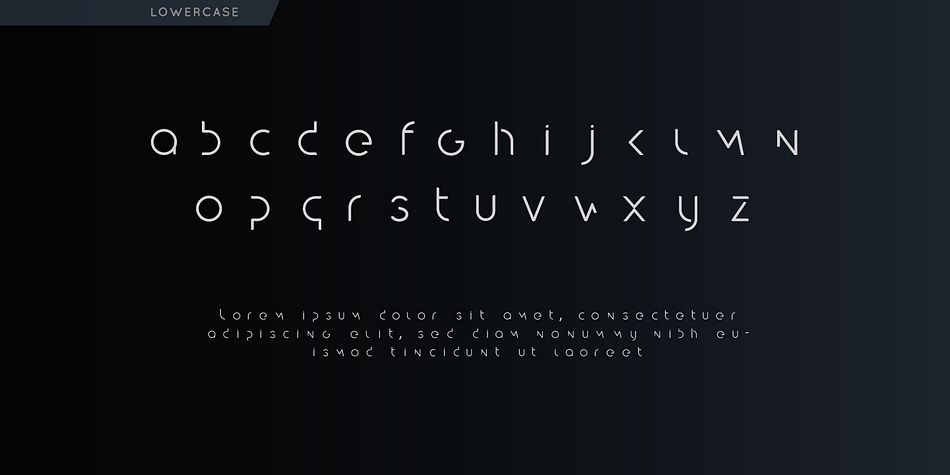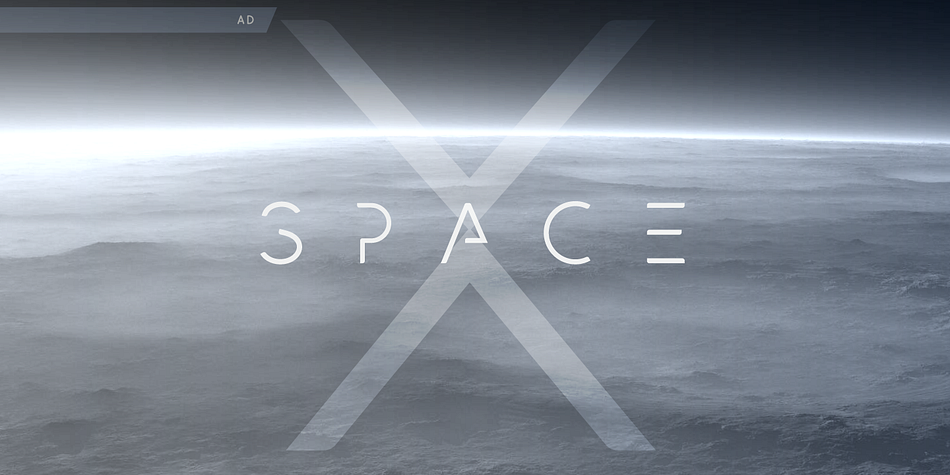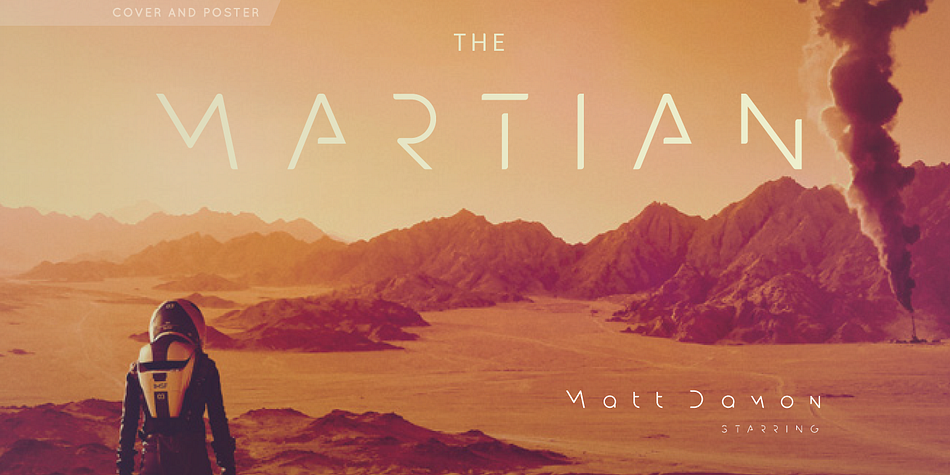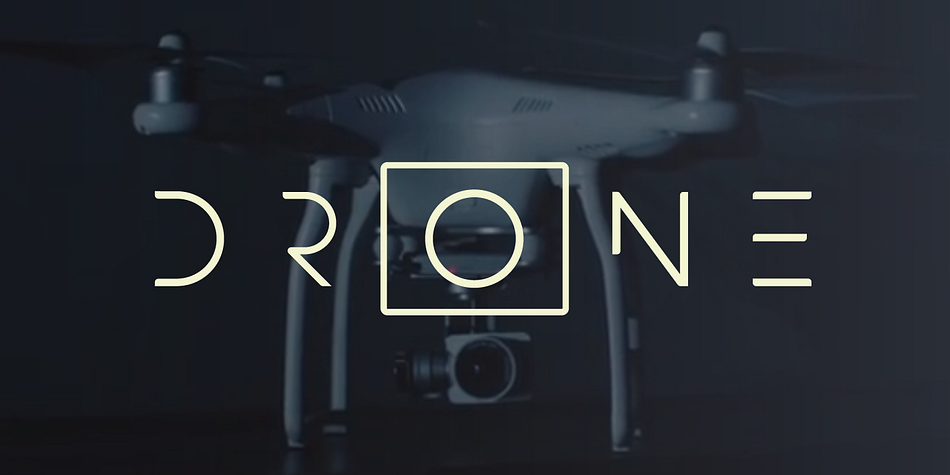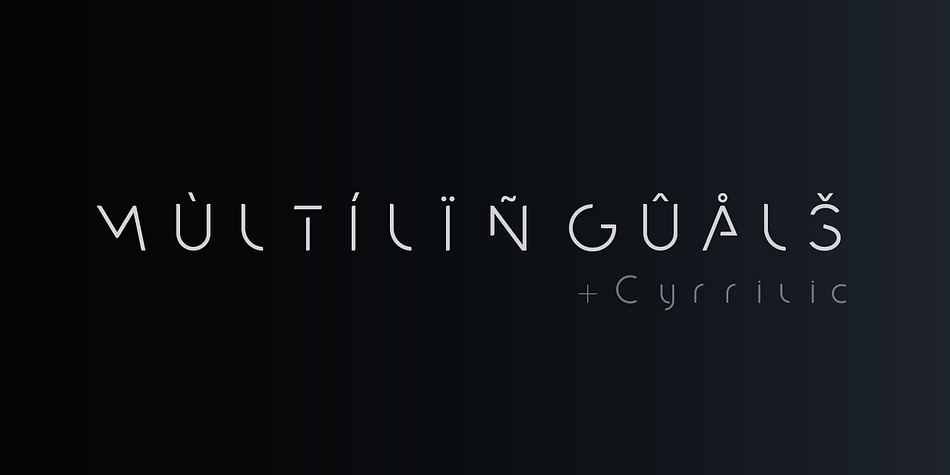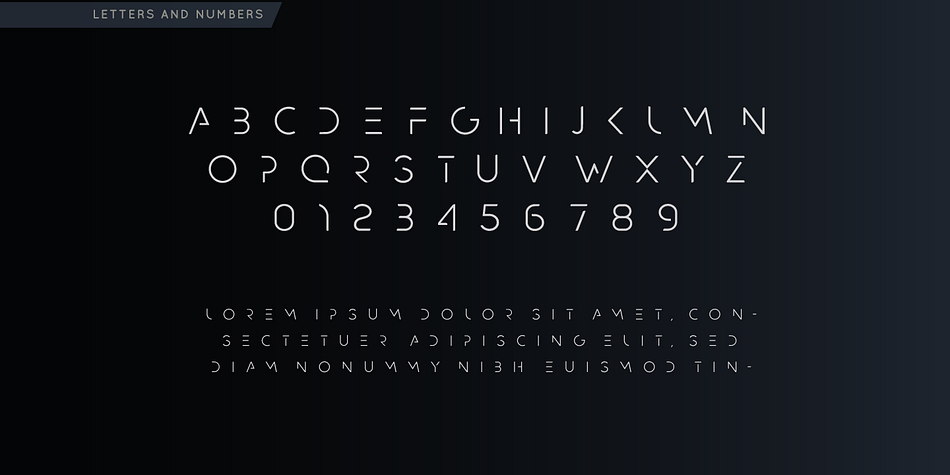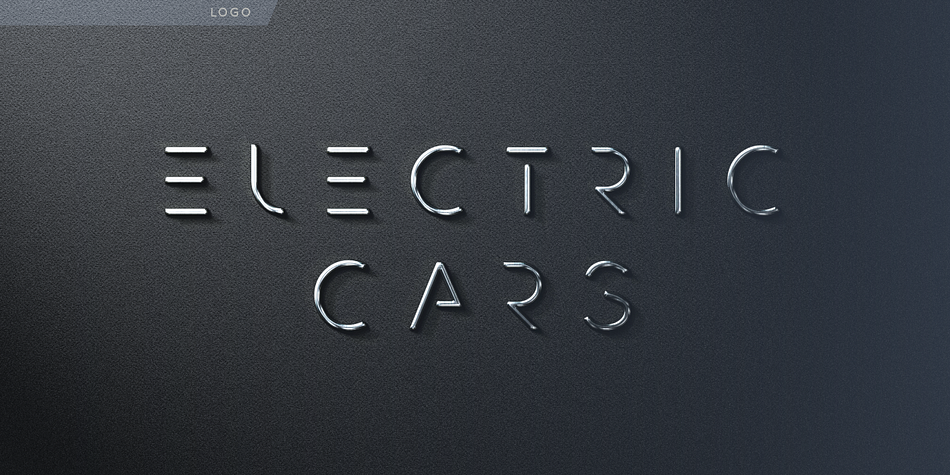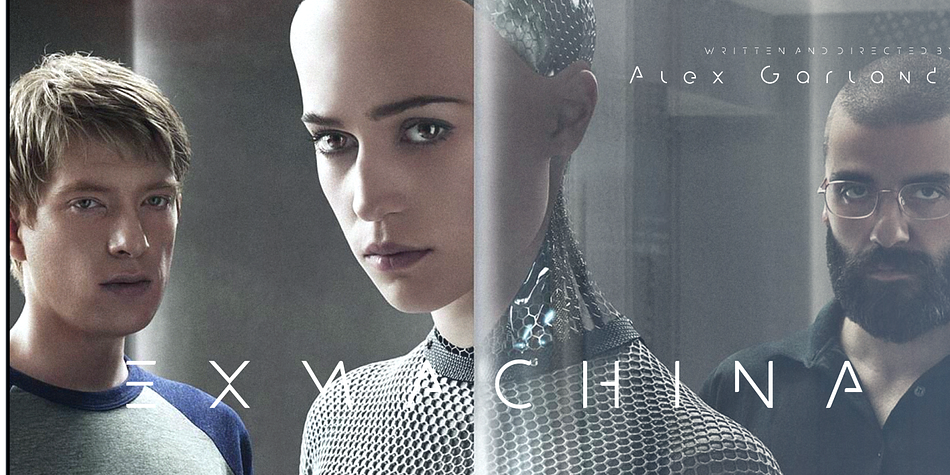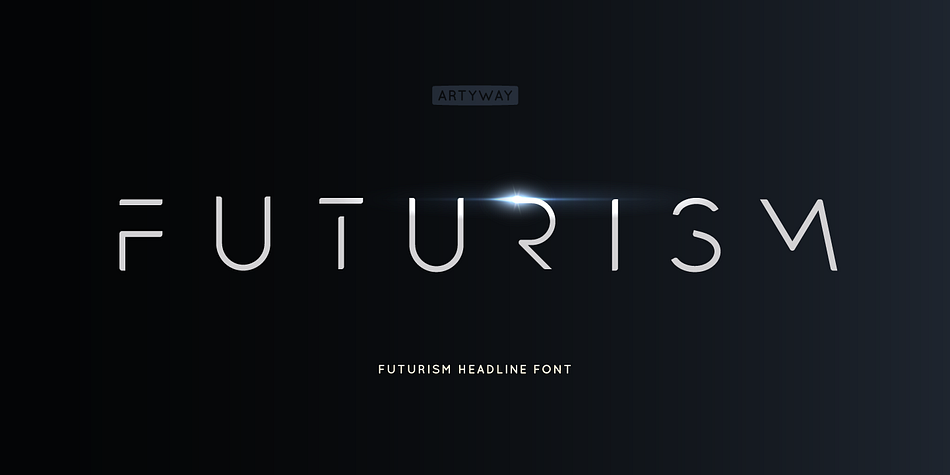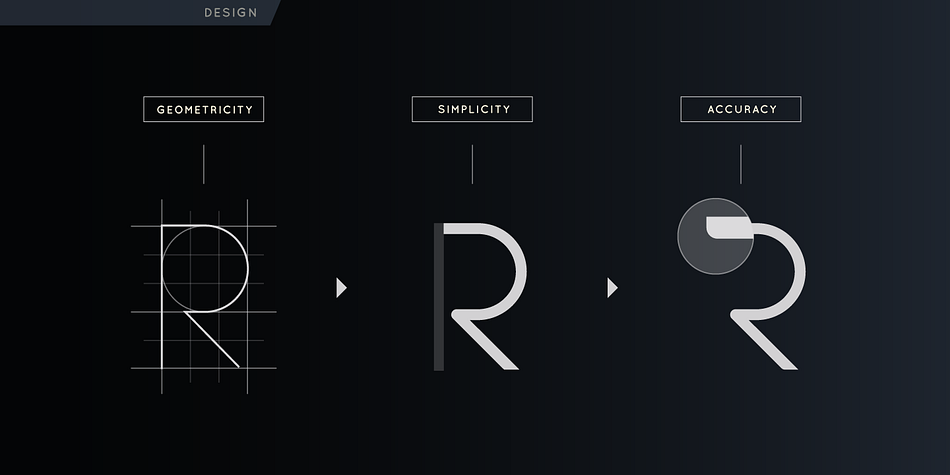
Futurism
Designed by Yehor Lisnyi, Futurism is a display sans font family published by Artyway.
Welcome to the world of modern graphic design with my bestseller “Futurism” font! This font is currently one of the most popular fonts worldwide and will surely make you happy too!
Versatile and perfect for creating logos, emblems, and posters. Although using it with longer intervals between letters is recommended, you can easily customize it to suit your design style.
Futurism is a stylish and sleek font that exudes a futuristic vibe, making it perfect for space-themed, high-tech, and innovative products. With your download, you’ll receive one OTF file with uppercase and lowercase, multilingual, and numbers.